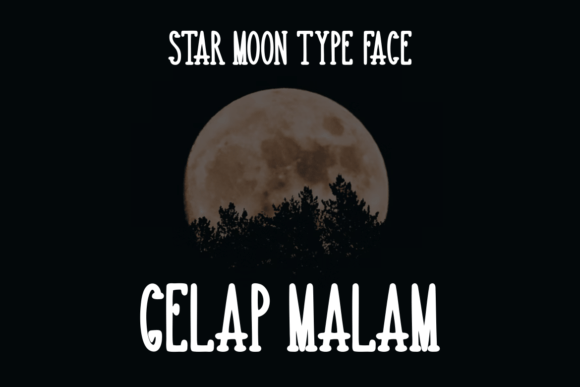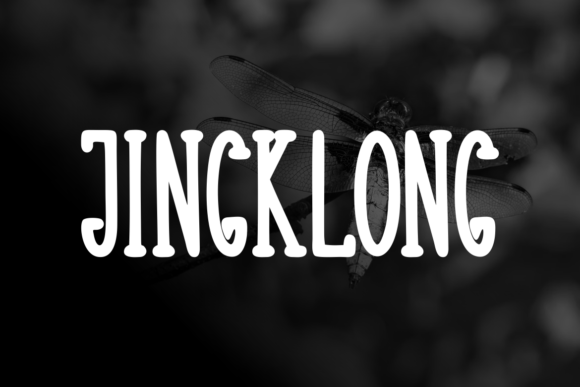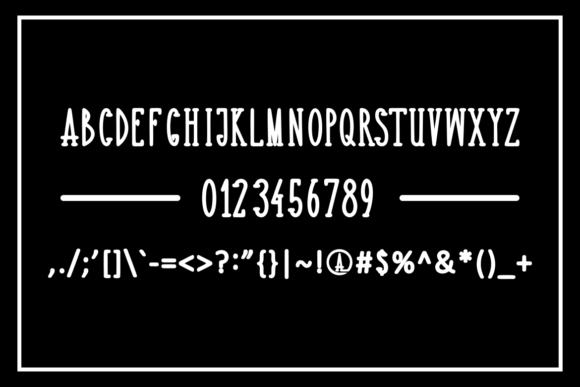
Star Moon Font
About Star Moon Font
“Star Moon” is a beautiful and authentic handwritten font that exudes charm and authenticity. This font has the power to infuse an incredibly joyful touch into your designs, making them shine with a unique character. By incorporating “Star Moon” into your creative ideas, you’ll quickly observe how it helps your designs stand out and capture attention.
The font’s beautiful and authentic design adds a personal and heartfelt quality to your creative work. Its aesthetics are well-suited for a wide range of design projects, from branding and logos to invitations, stationery, social media graphics, and more.
In the realm of design, fonts play a pivotal role in conveying emotion, setting the mood, and creating a memorable visual impression. “Star Moon” excels in these aspects by offering a handwritten style that is both beautiful and genuine. Its aesthetics infuse your designs with a sense of authenticity and joy, making them engaging and memorable.
In summary, “Star Moon” is more than just a font; it’s a beautiful and authentic design tool that can make your creations stand out with charm and joy. Its unique handwritten style is ideal for designers seeking to add a personal and heartfelt touch to their work. Whether you’re an experienced designer or just starting your creative journey, “Star Moon” is the font that can help you create designs that leave a lasting impression.